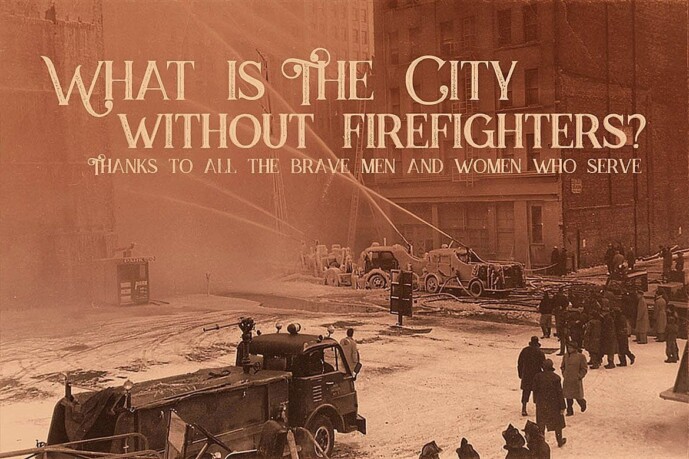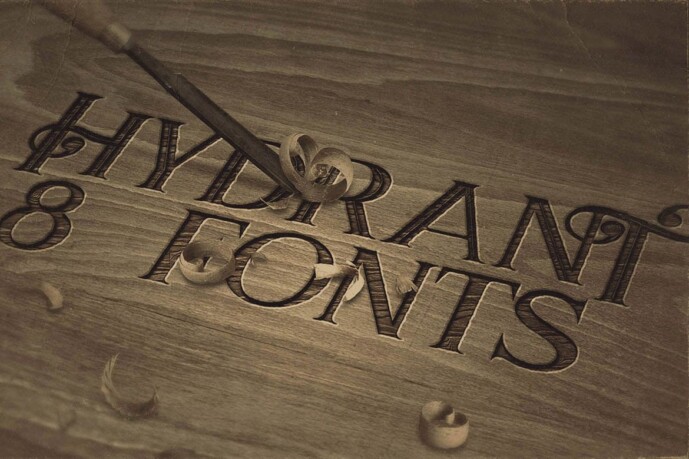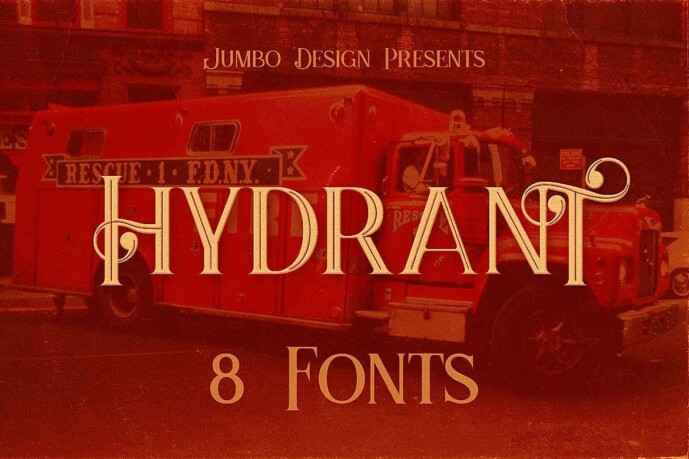
Hydrant Font
Hydrant Font: Unique retro or vintage style custom serif font with 8 styles: regular and grunge, inline and inline grunge, grunge shadow and shadow, grunge shadow and inline shadow, inline shadow and inline shadow grunge.